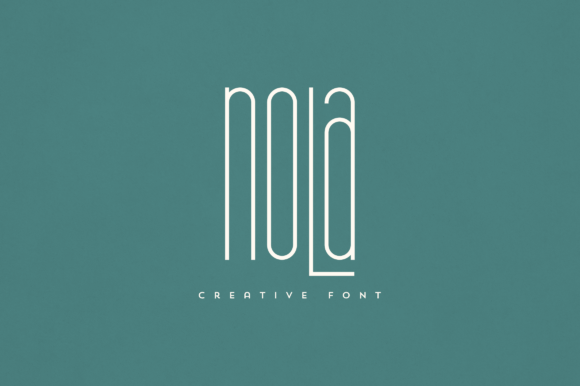
**Introducing Nola: The Font that Unleashes Your Creativity**
Welcome to the realm of Nola, an extraordinary display font poised to transform your digital creations into masterpieces. This exquisite typeface, meticulously crafted by the renowned vladfedotovv, is a symphony of elegance and versatility, empowering you to craft typography that resonates with individuality and style.
Nola's graceful curves and refined lines will cast a spell on your logos, branding, headlines, and even the most unassuming text. Its enchanting presence will elevate every word, drawing the eye and captivating the imagination.
Imagine your brand adorned with Nola's timeless beauty, conveying a sense of sophistication and artistic flair. Your home-ware designs will exude a touch of whimsy and charm, as if touched by the hand of a master craftsman. Product packaging adorned with Nola's elegant strokes will entice customers with its irresistible allure.
Grace the pages of magazines with Nola's captivating presence, ensuring that your headlines command attention and linger in the minds of readers. Use Nola as a stylish overlay on any background image, instantly transforming it into a work of art that captivates the senses.
**Nola: The Perfect Choice for Your Creative Endeavors**
Whether you're a seasoned designer or an aspiring artist, Nola is the perfect companion for your creative journey. Its versatility knows no bounds, adapting seamlessly to a myriad of projects, from branding and packaging to web design and social media graphics.
Nola's elegant curves and refined lines will lend a touch of sophistication to your creations, while its versatility empowers you to experiment and explore endless possibilities. Unleash your imagination and let Nola guide you towards typographic excellence.
**Experience the Magic of Nola**